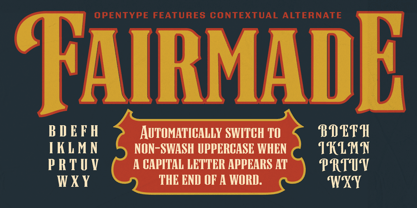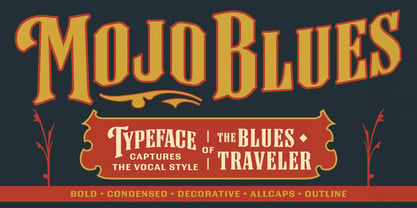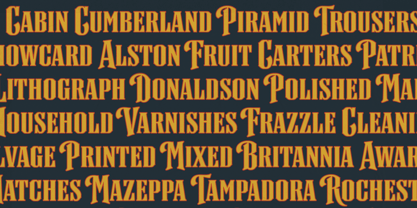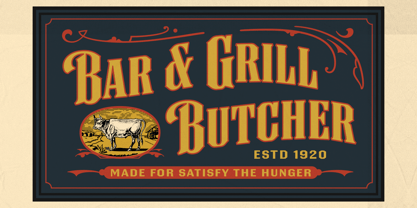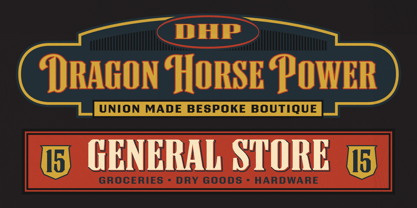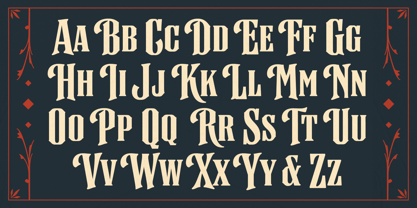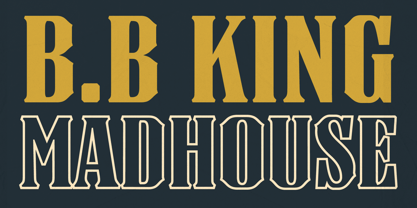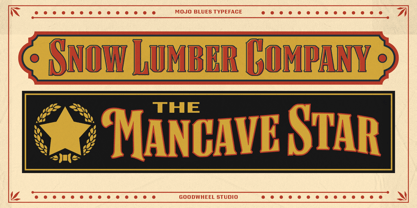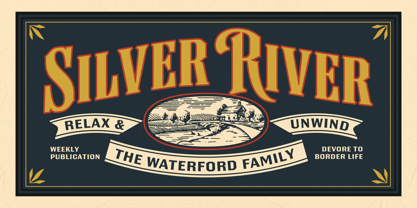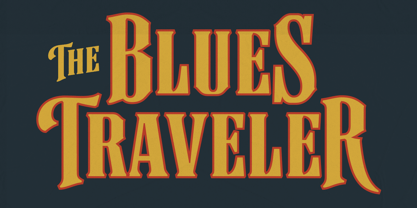
GW Mojo Blues
by Goodwheel Studio
The GW Mojo Blues Font Family was designed by Ilham Herry and published by Goodwheel Studio. GW Mojo Blues contains 2 styles and family package options. More about this family
Mojo Blues is a typeface inspired by the soulful sound of the lead singer of Blues Traveler. Featuring condensed proportions and decorative caps, it captures the bold, loud, and sophisticated energy of his music. The family includes two styles, Regular and Outline, perfectly suited for display use such as signage, logos, and headlines. To add flair, alternate swash capitals automatically trigger when an uppercase letter is placed at the end of a word.